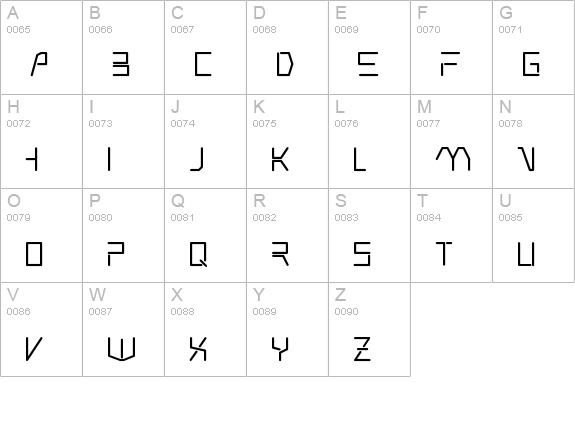
Andros Font Details
Andros font is a beautifully designed typeface that exudes elegance and sophistication. With its sleek lines and modern appeal, Andros is perfect for a wide range of design projects, from branding to editorial design. This versatile font offers a clean and professional look that will make your text stand out. The best part? Andros font is available for free download at FontsMarket.com. This means you can easily access this high-quality font without any cost, making it a valuable addition to your font library. Whether you're working on a personal project or a client assignment, Andros font is sure to elevate your design and bring a touch of class to your work. Download Andros font today and start creating stunning designs with this stylish and contemporary typeface.